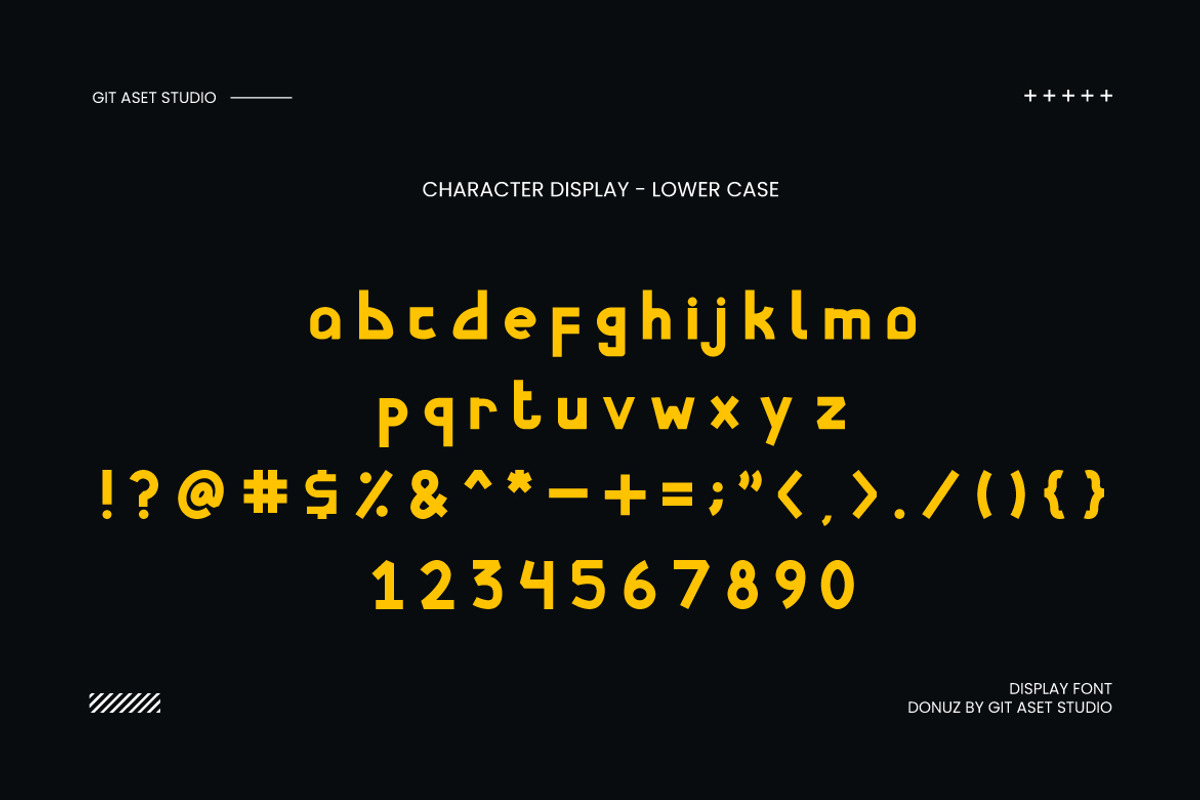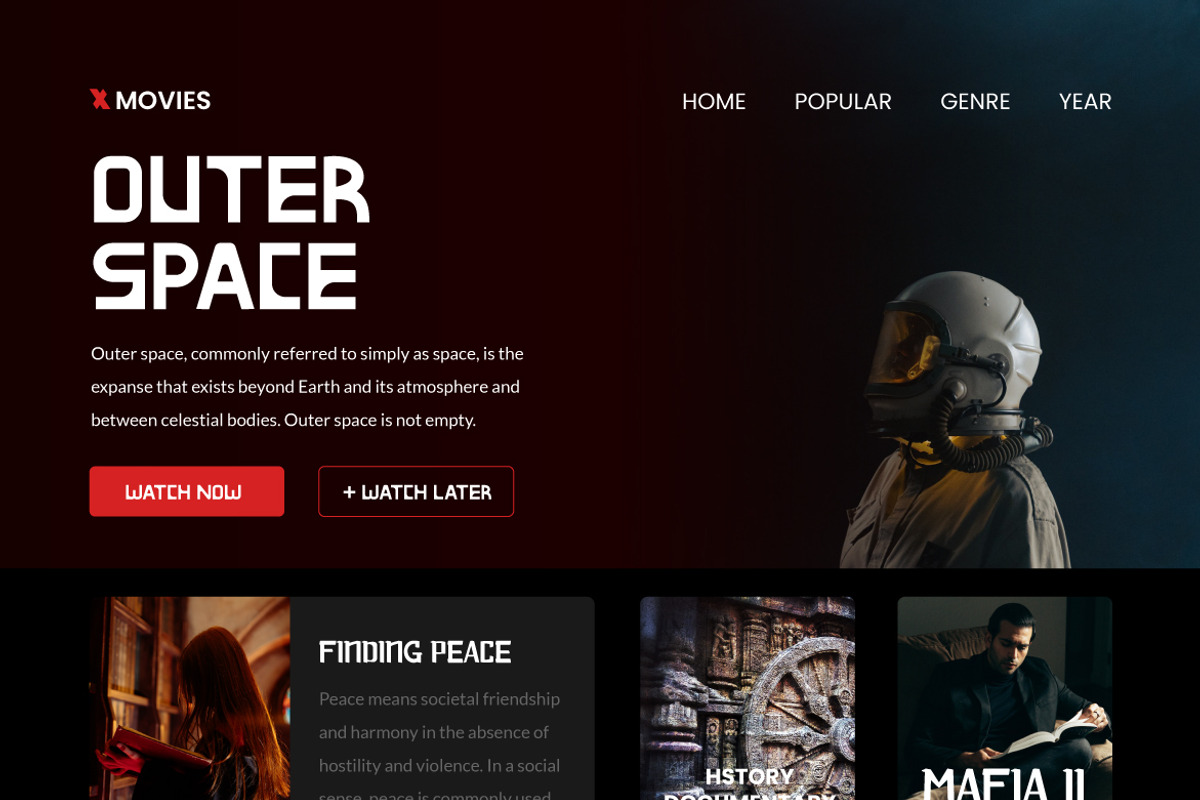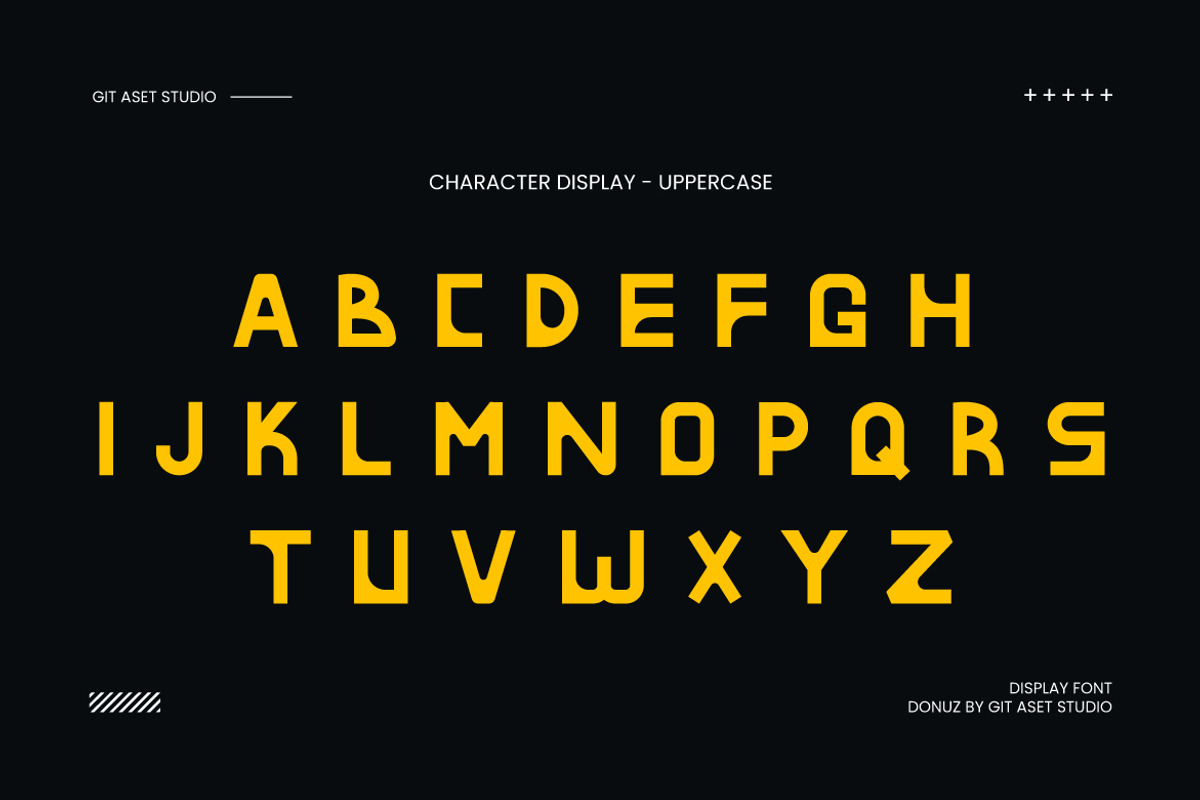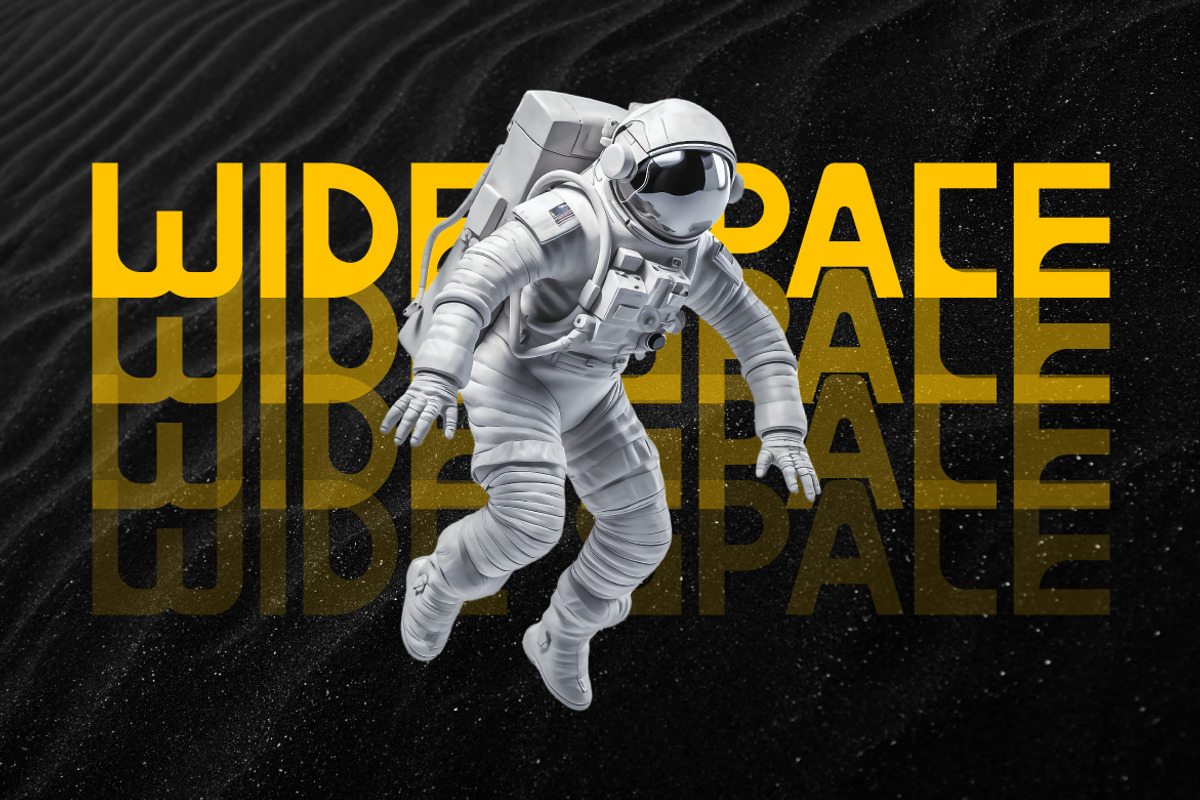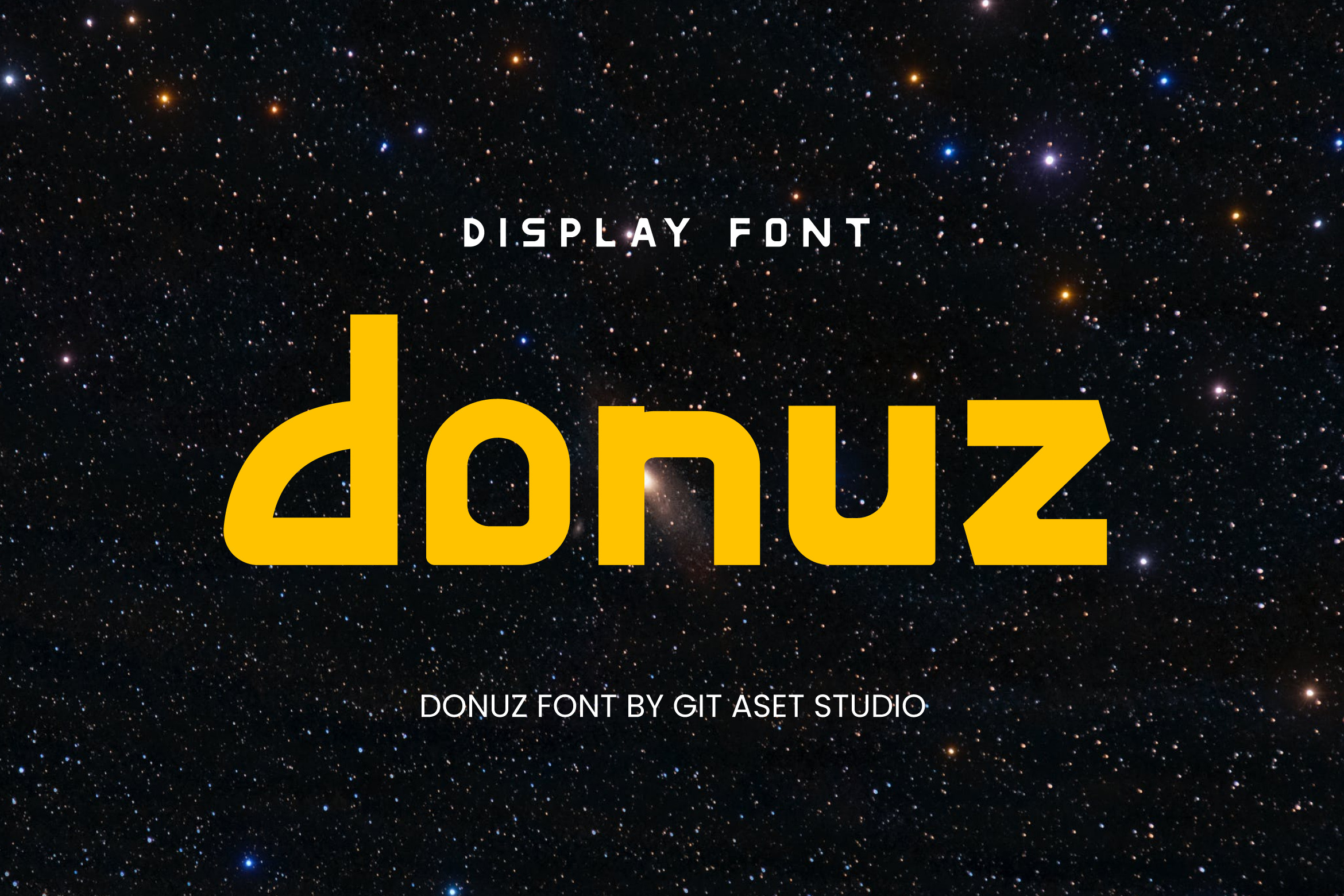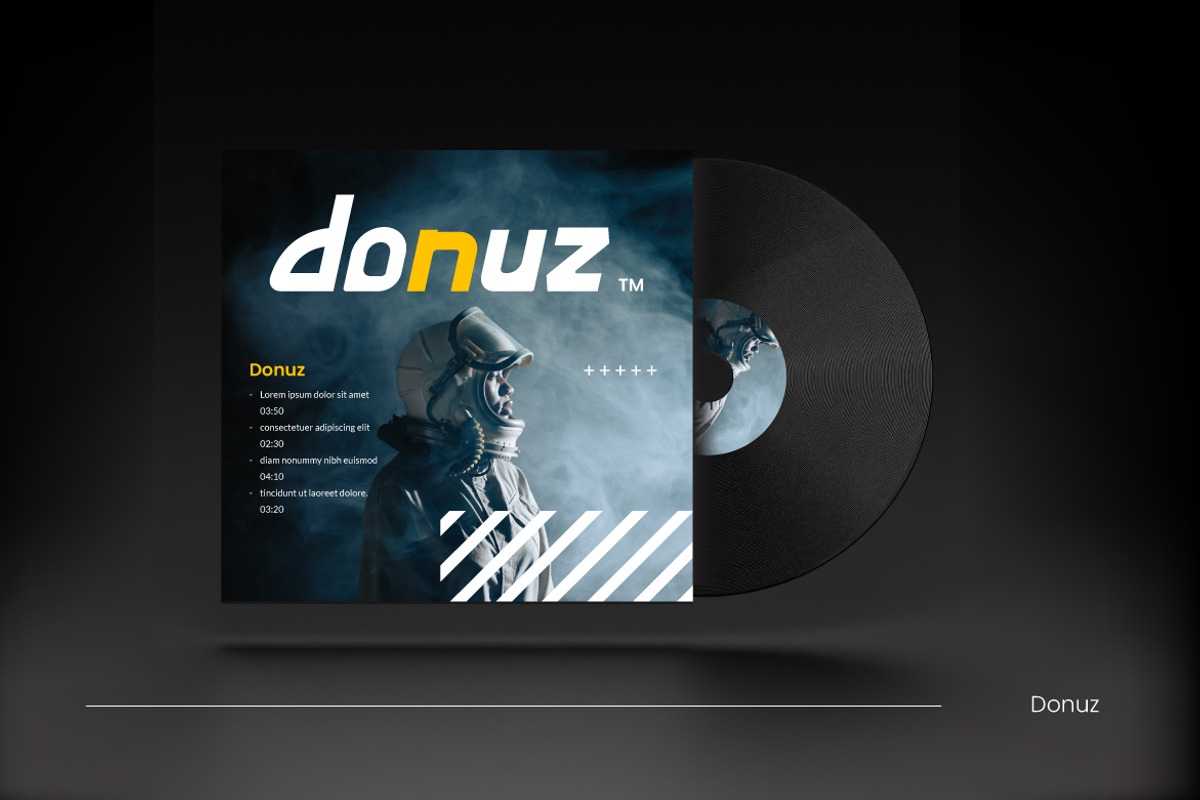
Donuz - Futuristic Display Typeface
Futuristic Display Typeface is a must-have asset for designers looking to add a touch of modernity and innovation to their projects.
Whether you are working on branding projects, website designs, or futuristic-themed graphics, this typeface is an excellent choice. From high-tech startups to gaming companies, this font enhances any project that needs a touch of futuristic appeal.